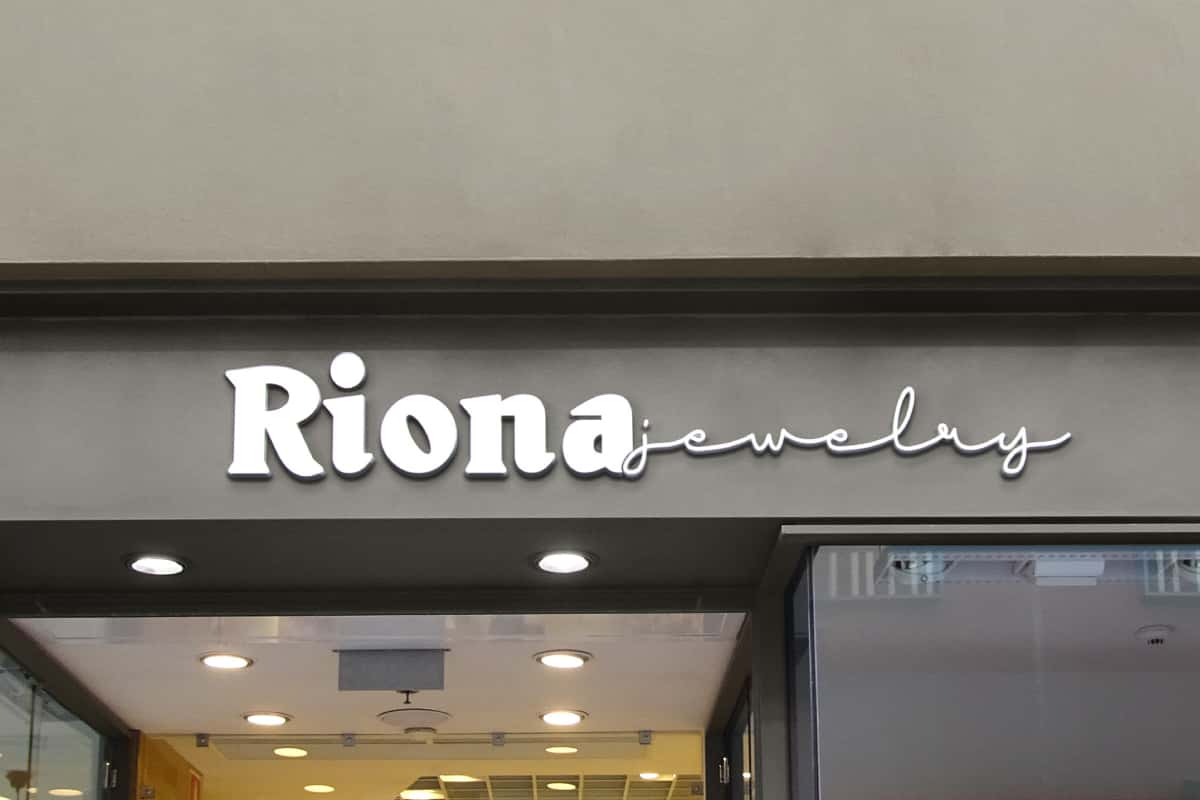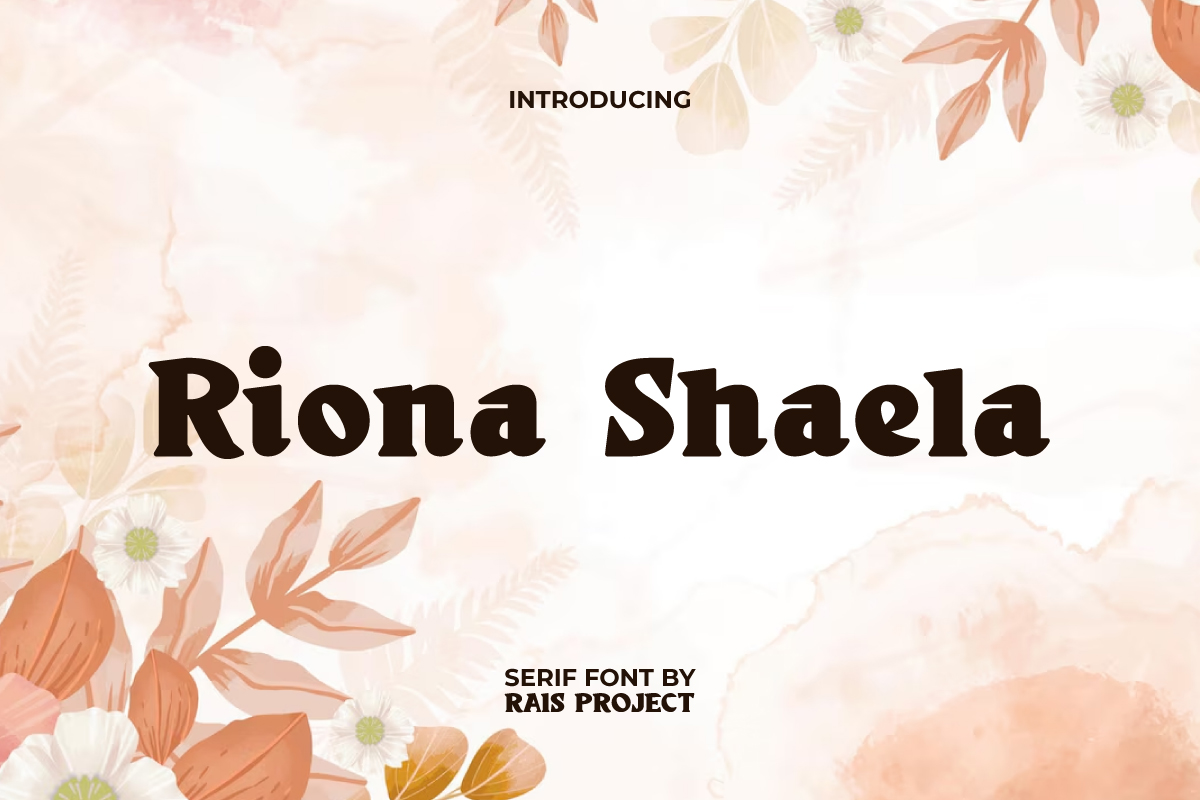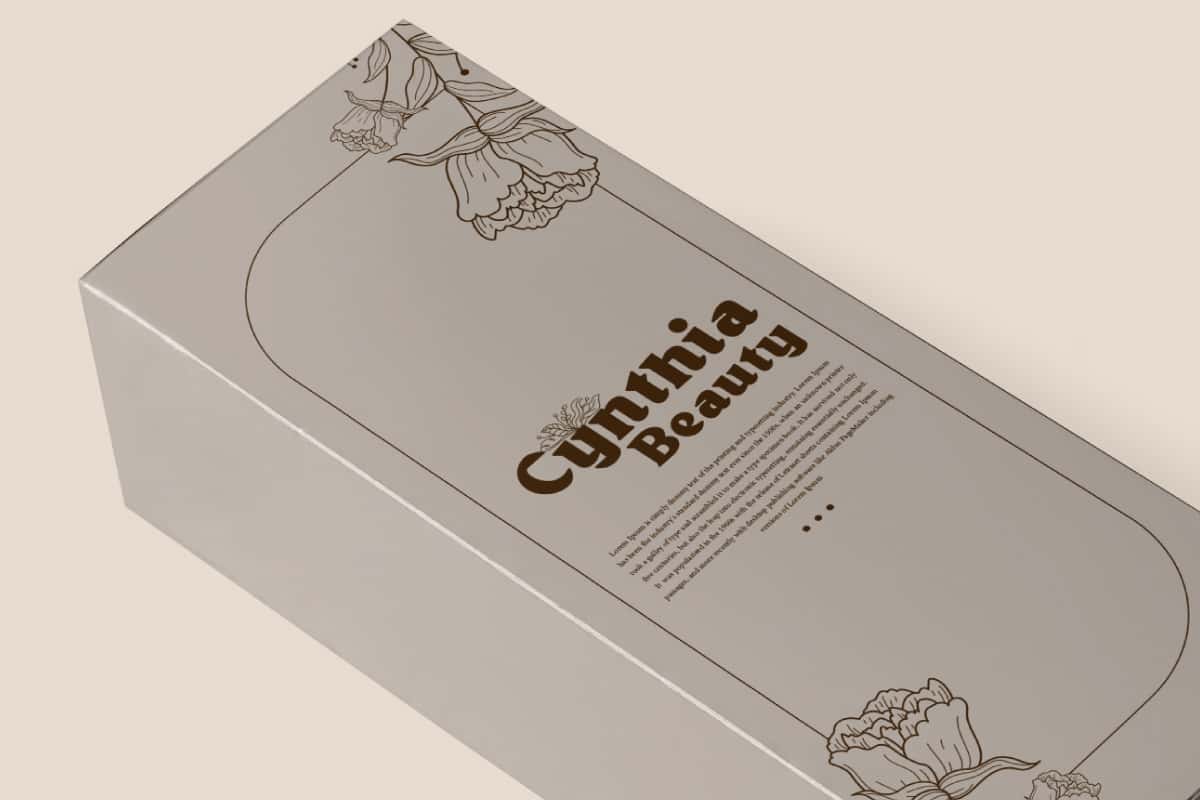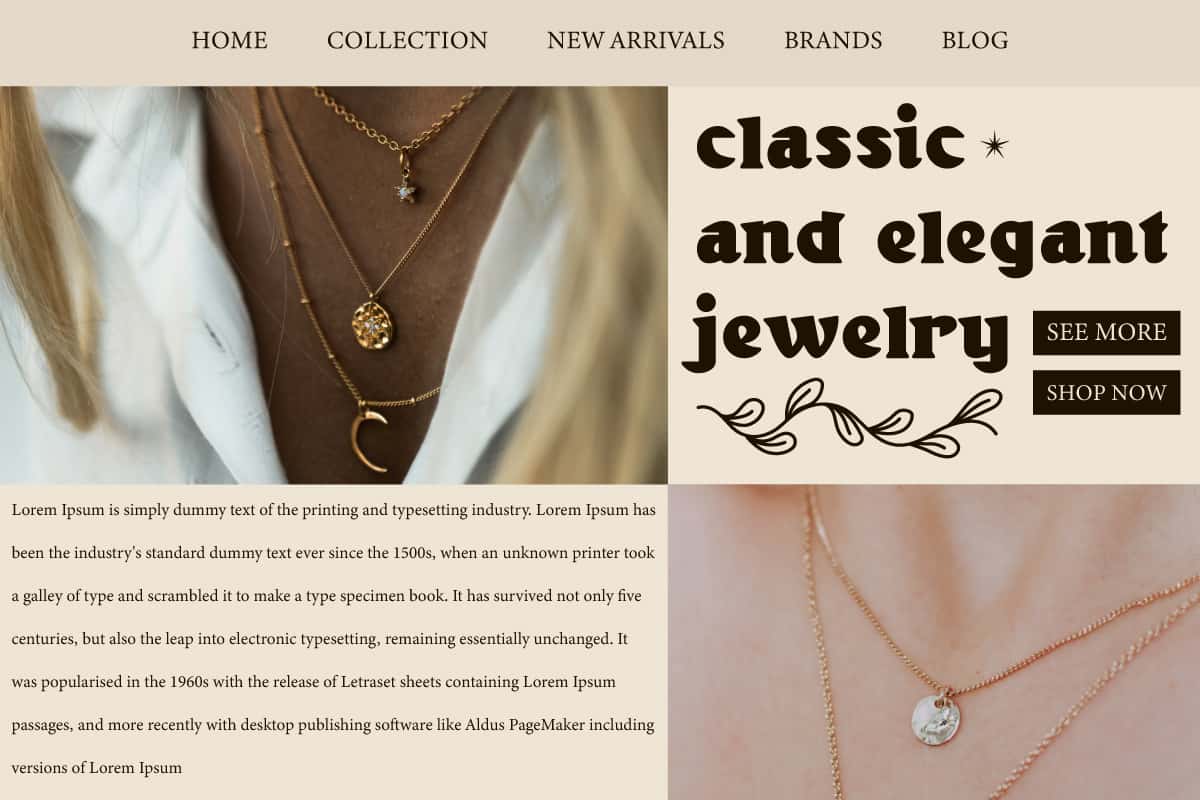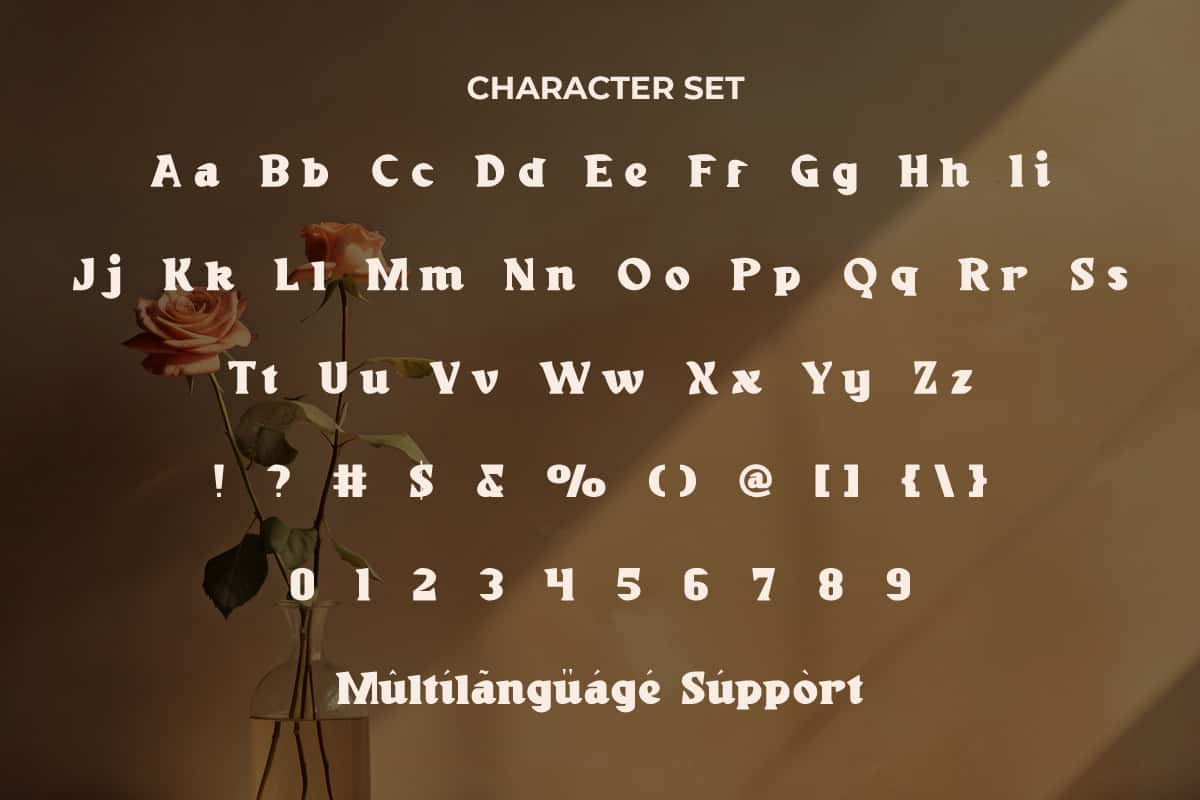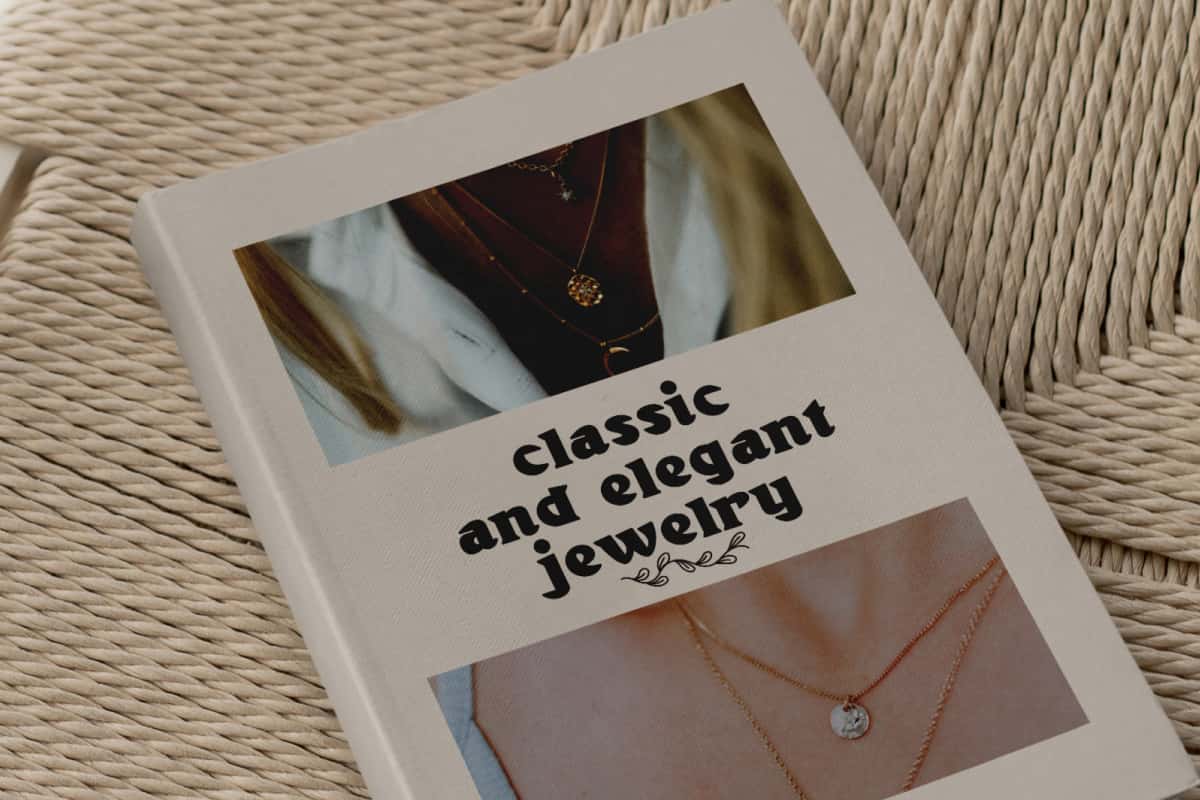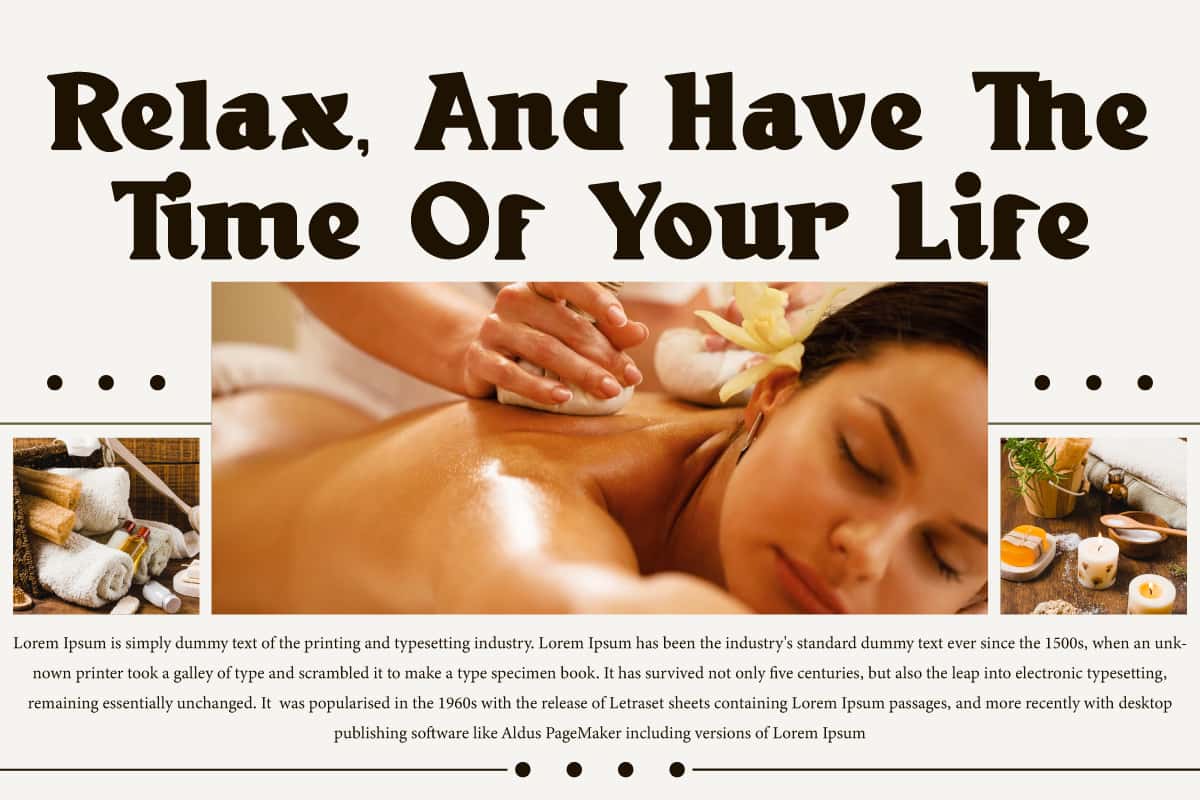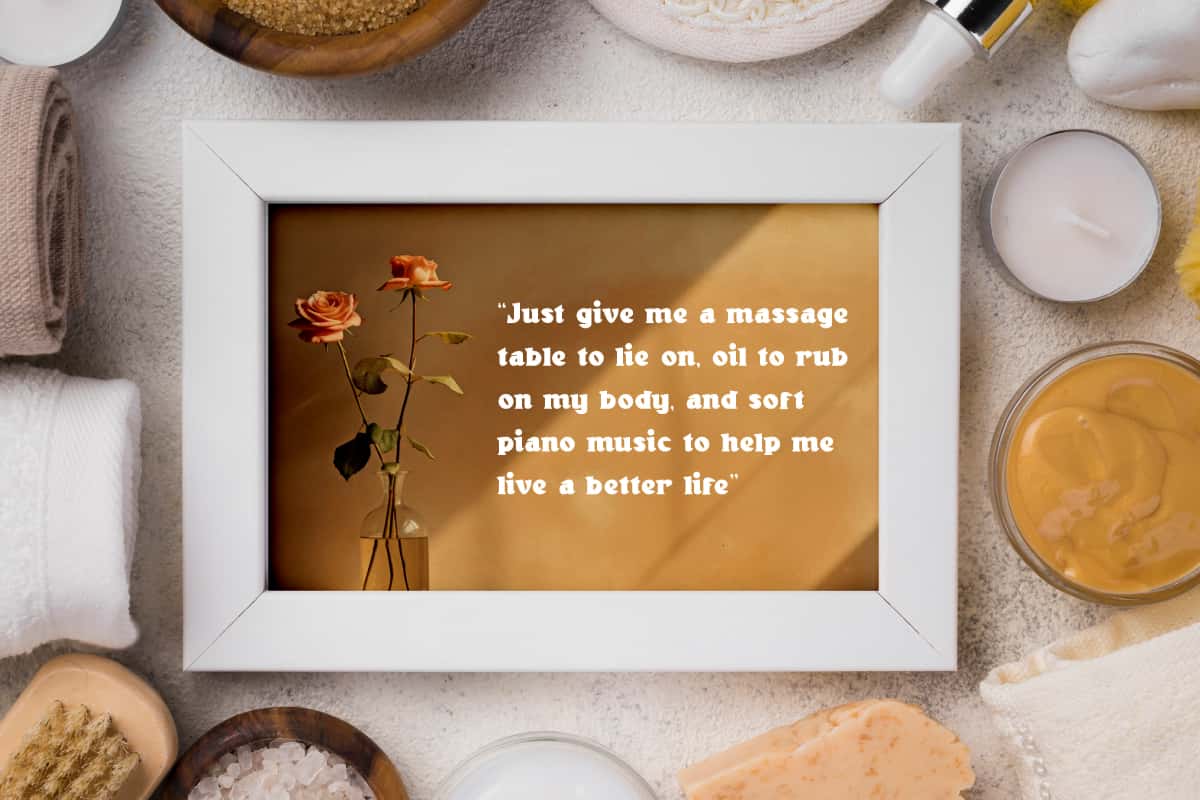
Riona Shaela Font
Riona Shaela Font is an adorable serif font with bold letter. Use this font now to make your design looks beautiful!
Riona Shaela Font is a special display serif font with bold letters. The serif style make it much unique and clean for your design. It will be good for any designs, such as signage, advertisement, brand image, custom design, invitation, label, marketing material, poster, product packaging, quotes, stationery, website page, and more!
Riona Shaela Font includes a full set of ALL CAPS for Uppercase and Lowercase Letters, Numerals, and large range of Punctuation. This unique font will be suitable for various industries, such as fashion, cafe, event or festival, florist, printing, publishing, photography, sports, etc.